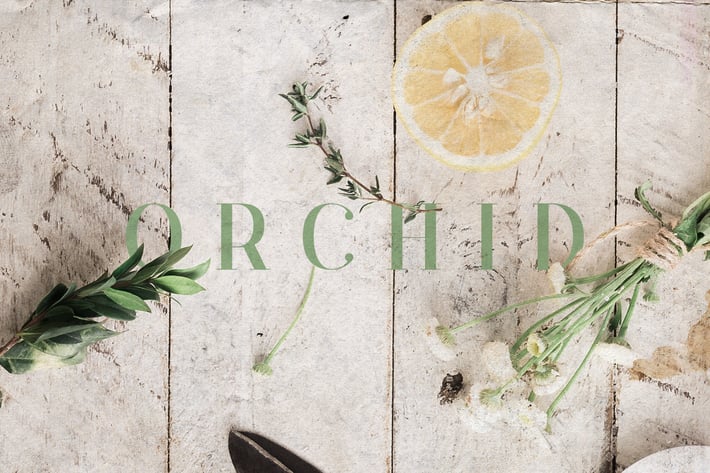
Orchid Font
An elegant, multilangual, sans-serif typeface with refined lines. Brilliant choice for logos, branding, arts, posters, advertising, etc.
Support spanish, portuguese, german, danish, french, canadian french, italian, western and central european languages.